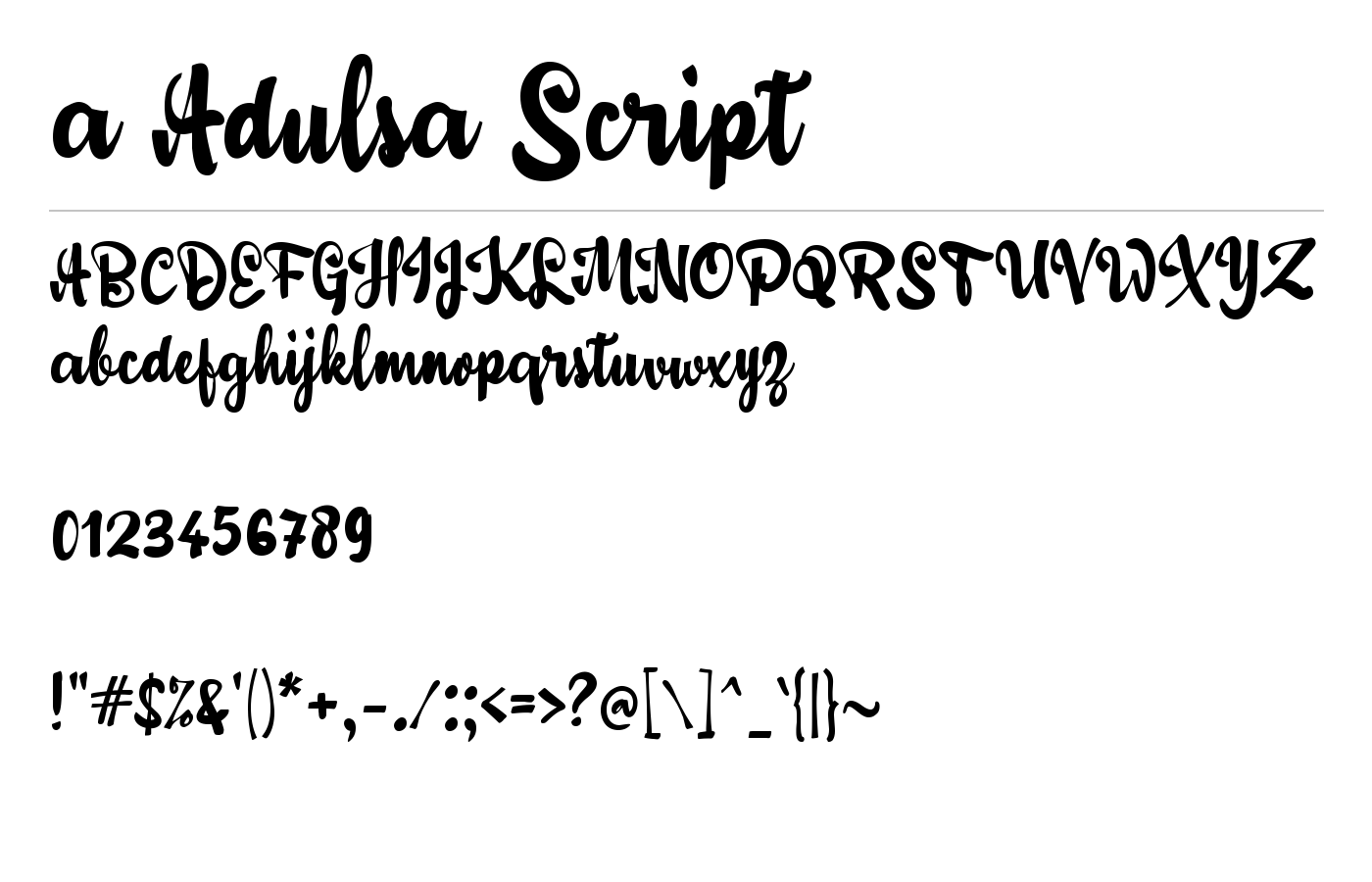
Adulsa Script is a bold and lively script font that combines playful charm with strong, rounded strokes, giving it a friendly yet confident feel. Its casual, hand-drawn style with slightly condensed letterforms and smooth curves makes it perfect for creative branding, invitations, and eye-catching headlines where a touch of personality and warmth is desired. This font stands out in designs that want to convey approachability and fun while maintaining clear readability.
a Adulsa Script Font
About a Adulsa Script Font